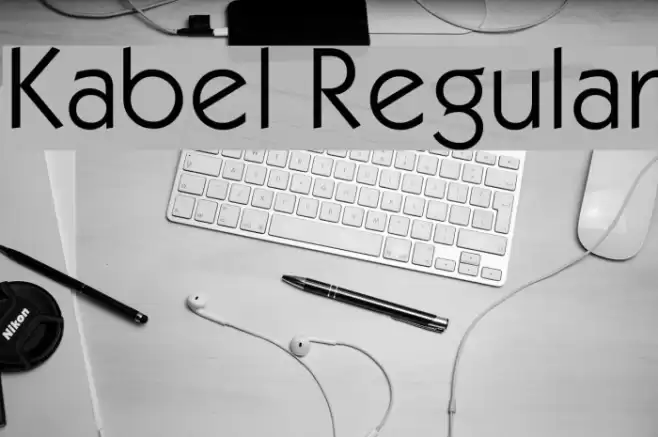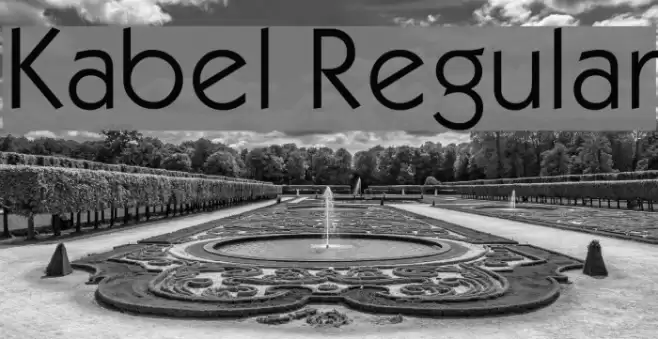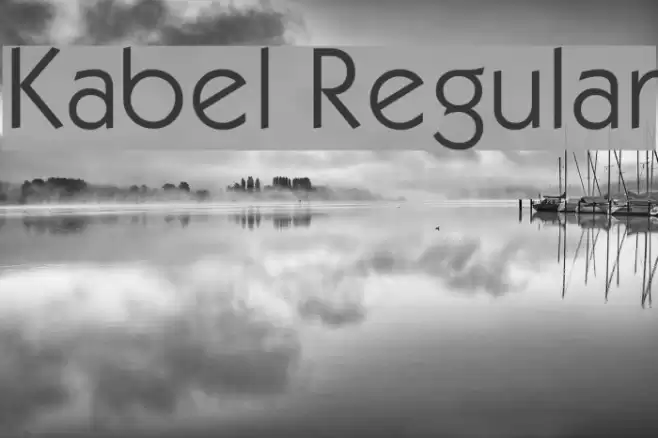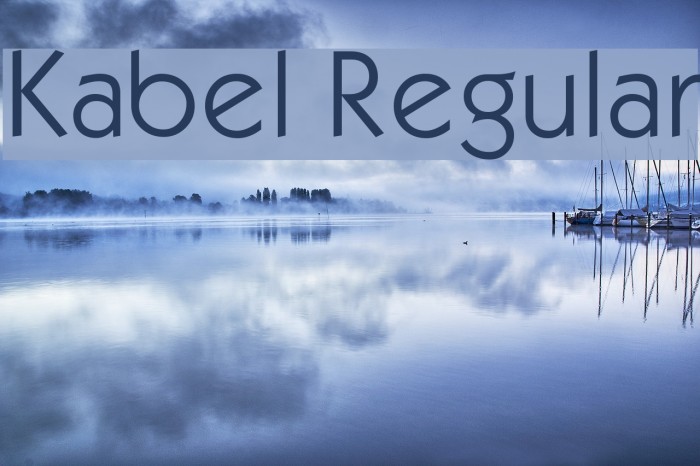
Kabel Regular Font
Kabel Regular Description
This font features a clean and geometric design with a modern aesthetic. The characters are well-proportioned, with a consistent stroke width that gives it a uniform appearance. The uppercase letters are bold and assertive, while the lowercase letters maintain a friendly and approachable look. The numerals are clear and easy to read, making them suitable for various applications. The special characters are designed to complement the overall style, ensuring versatility in usage. This font's simplicity and clarity make it ideal for both digital and print media.
A clean, geometric sans-serif font with a modern and uniform appearance from Uncategorized fonts.
- Proposed Projects: Ideal for branding, advertising, web design, and editorial projects where clarity and modernity are essential.